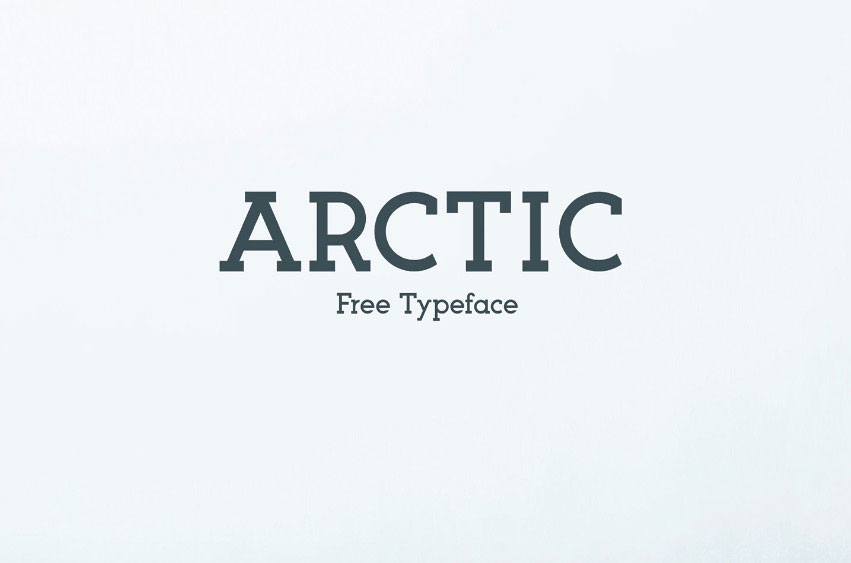
Arctic Font
Arctic Font is a skate installed by a Canadian designer Matt Ellis. In terms of its quality this is one of the best font designs ever and occupies the same league as Alcubierre font can be dubbed as coming from a fantastic drawing board.
The shapes of the glyphs are clearly readable and the set of characters proposed includes the upper and lowercase letters, symbols, numbers and accents.